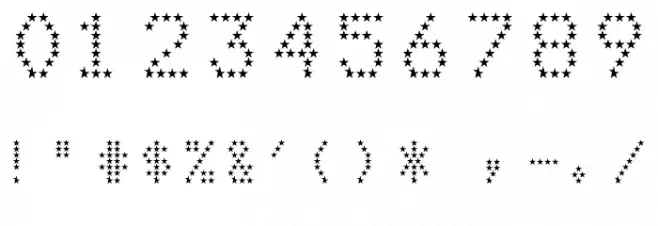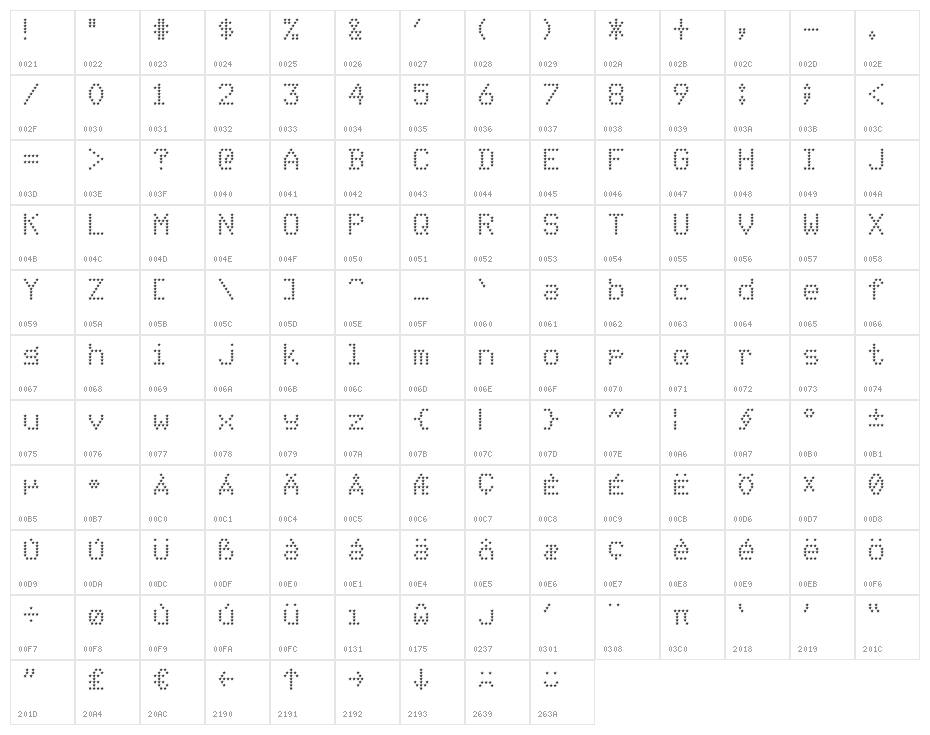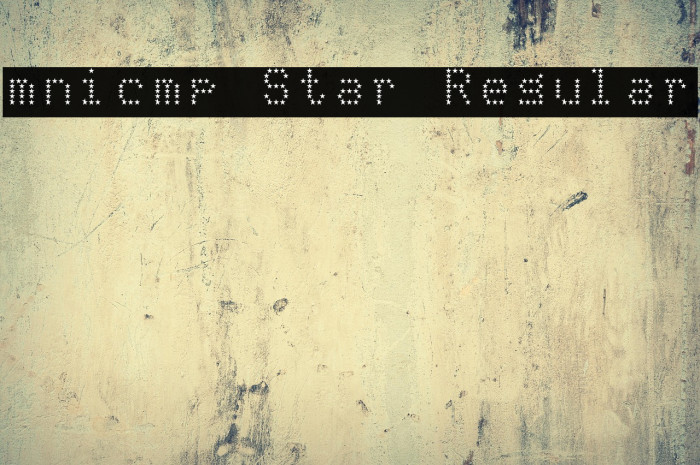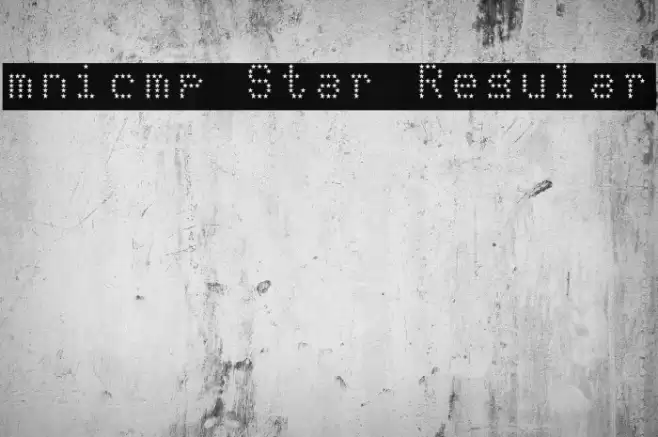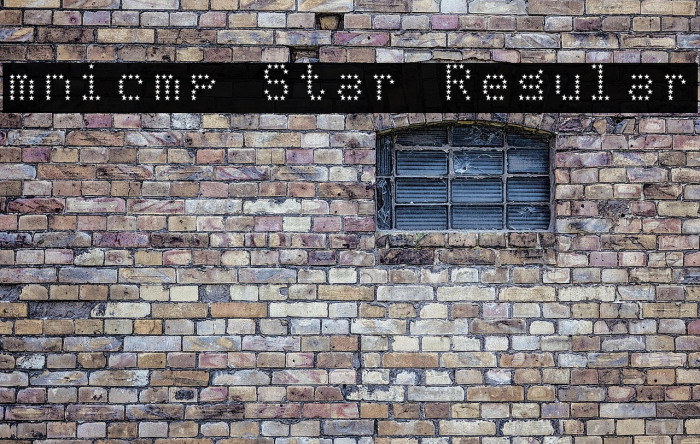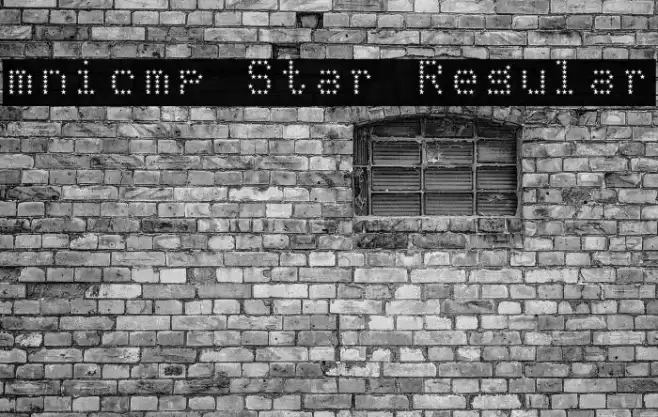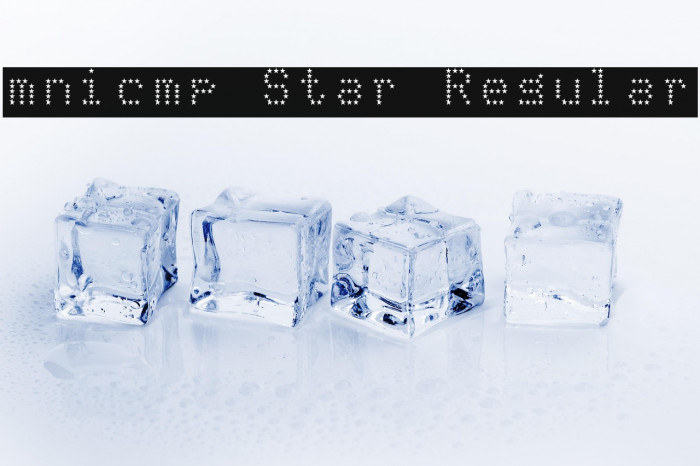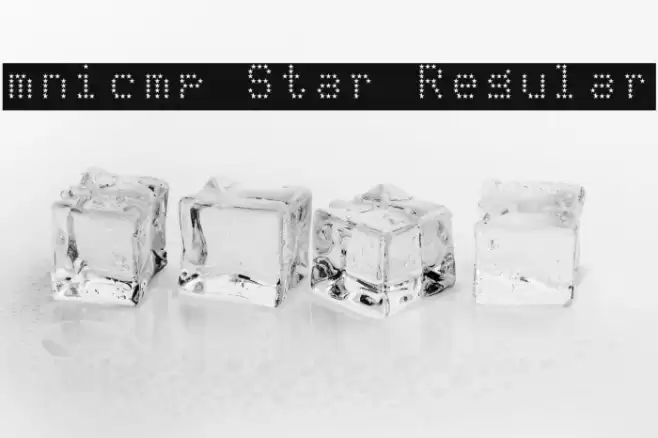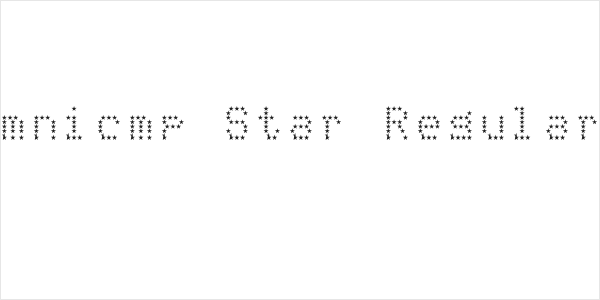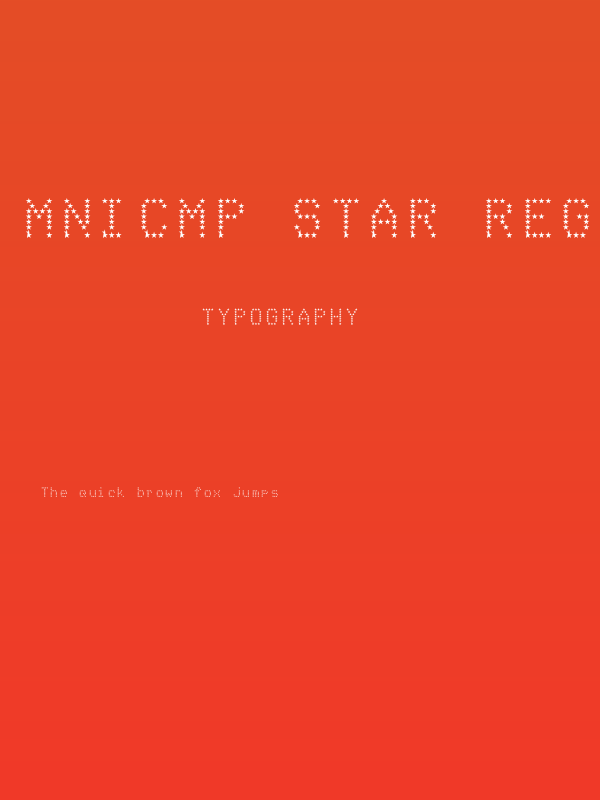
mnicmp Star Regular Font
mnicmp Star Regular Description
This font features a unique and playful design where each character is composed of small star shapes, giving it a decorative and whimsical appearance. The uppercase and lowercase letters, as well as numbers and special characters, maintain a consistent style, ensuring uniformity across the typeface. The star motif adds a sense of fun and creativity, making it stand out for projects that require a touch of novelty. The characters are evenly spaced, providing a balanced and harmonious look. This font is ideal for projects that aim to capture attention with a distinctive and engaging visual element.
| Proposed Projects | Ideal for children's book covers, party invitations, festive banners, and playful branding. |